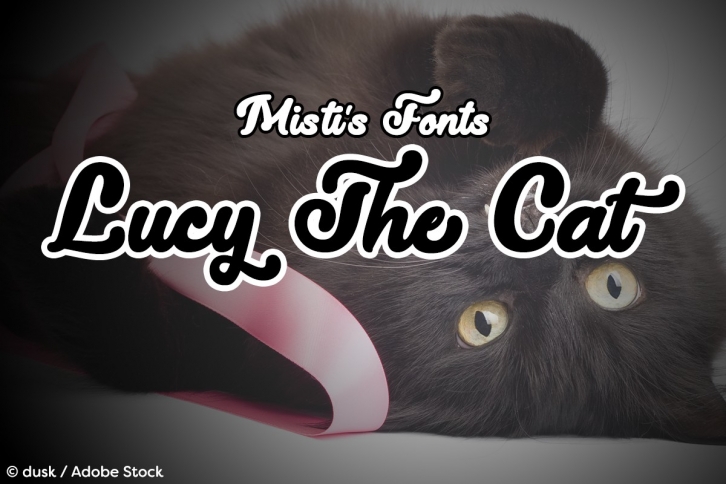
Lucy The Cat is a trendy and unique font with an authentic style. It was designed by Misti Fonts and it's a great choice for creative people who need such a font. It was released on June 19, 2018 and the file size is 14.42 MB. Lucy The Cat will add an organic vibe to any design idea!